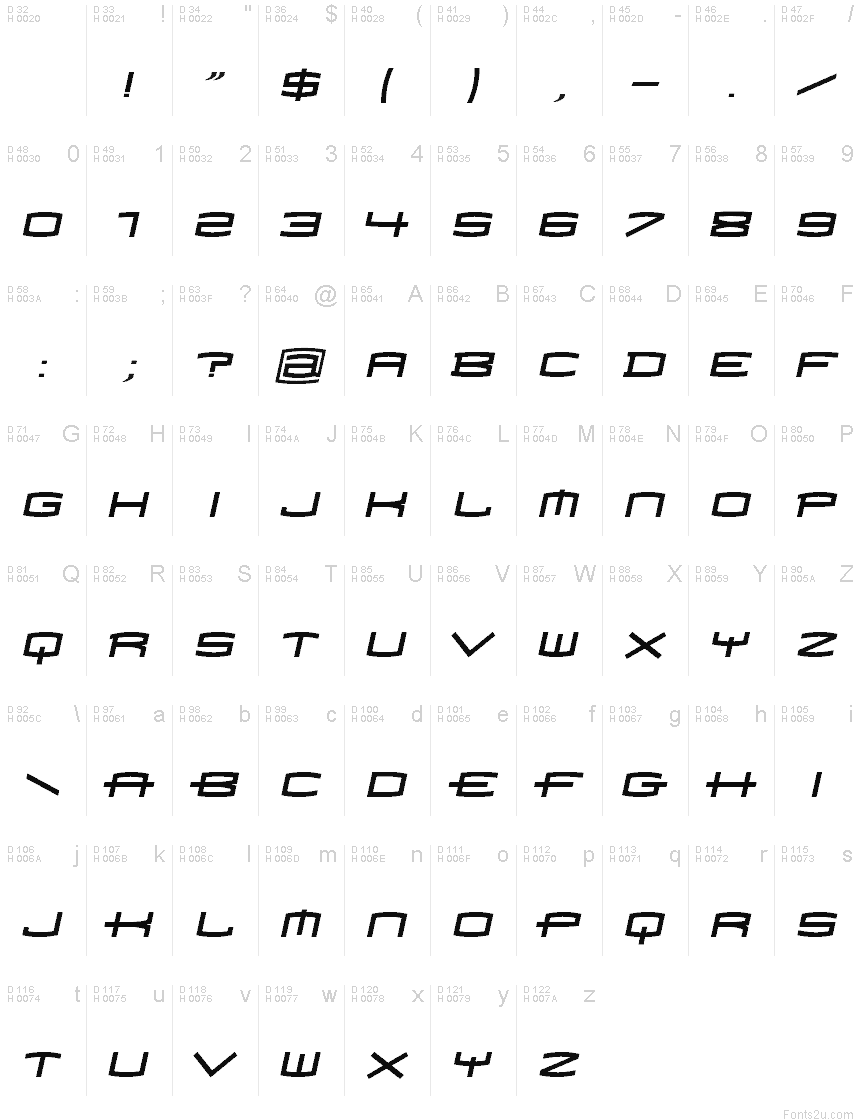
Homoarakhn
Homoarakhn font is a free futuristic display typeface that tilts forward with a sleek, almost kinetic energy. Its squared curves, tight geometry, and italic stance echo retro sci‑fi lettering, giving every word a sense of motion and tension, like it’s stretched between strong, inky lines. The letters feel slightly compressed yet bold, so short phrases hit hard and stay legible even at a distance.
Using Homoarakhn, you can push titles for movie posters, superhero fan art, gaming logos, comic covers, tech event flyers, and bold YouTube thumbnails. This free font shines when you keep it large and punchy, then pair it with a simple, neutral sans-serif for supporting text to let its angular character really stand out.
spiderman font, based partiialy on 1979 font